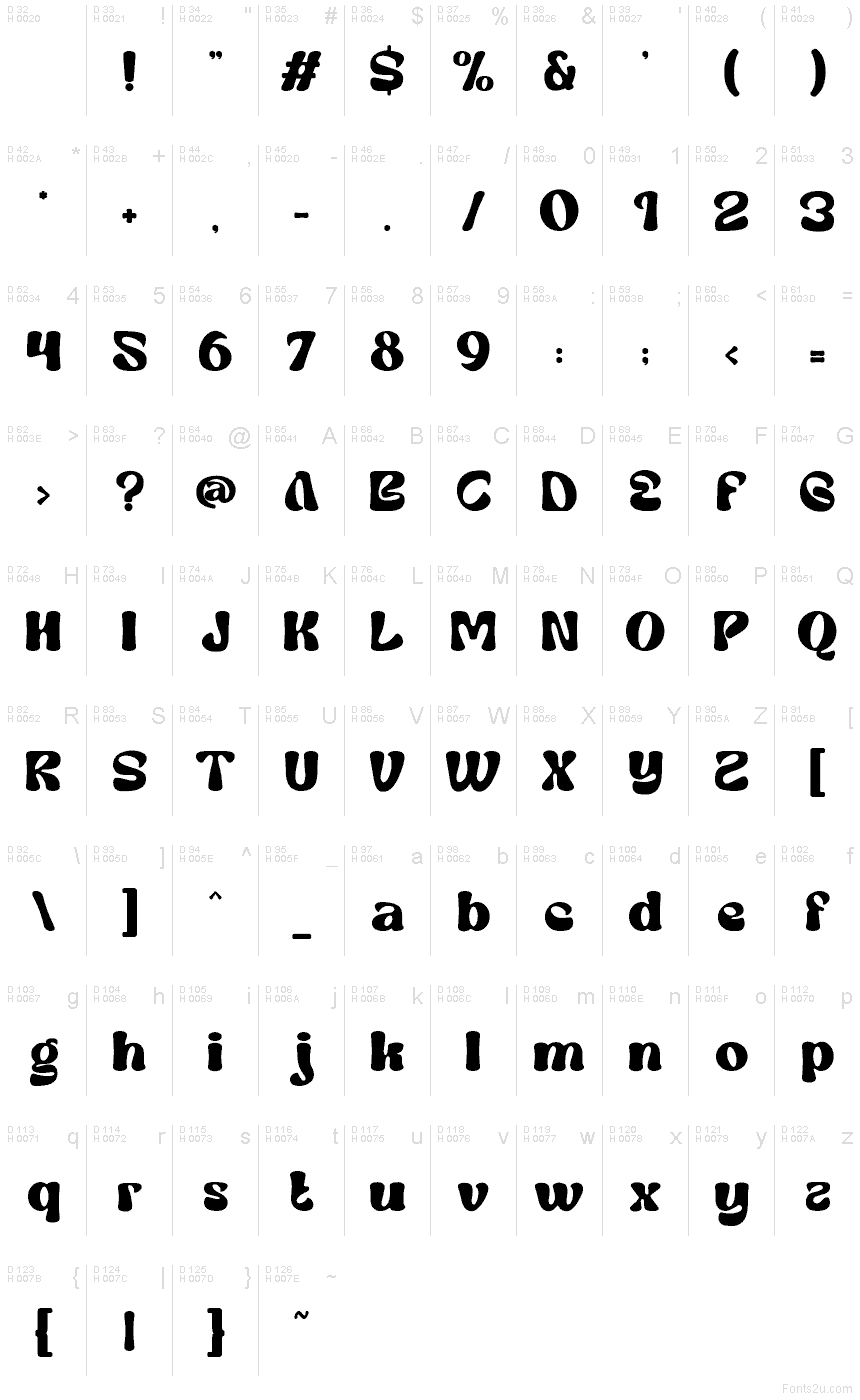
White Capel
White Capel font by PutraCetol Studio is a bold display font with a groovy design that brings back the whimsical vibe of vintage times. It’s bold, rounded, expressive, and playful in nature meaning it will always leave an impression on readers. Each letter has its own unique personality; however, they all have the same visual impact.
Use this free display font in your album covers, book covers, magazines, fashion-related projects, digital advertisements and promos (web or social media). It’s suitable also for brands such as those from businesses ranging between tech startups and luxury to food and beverage.